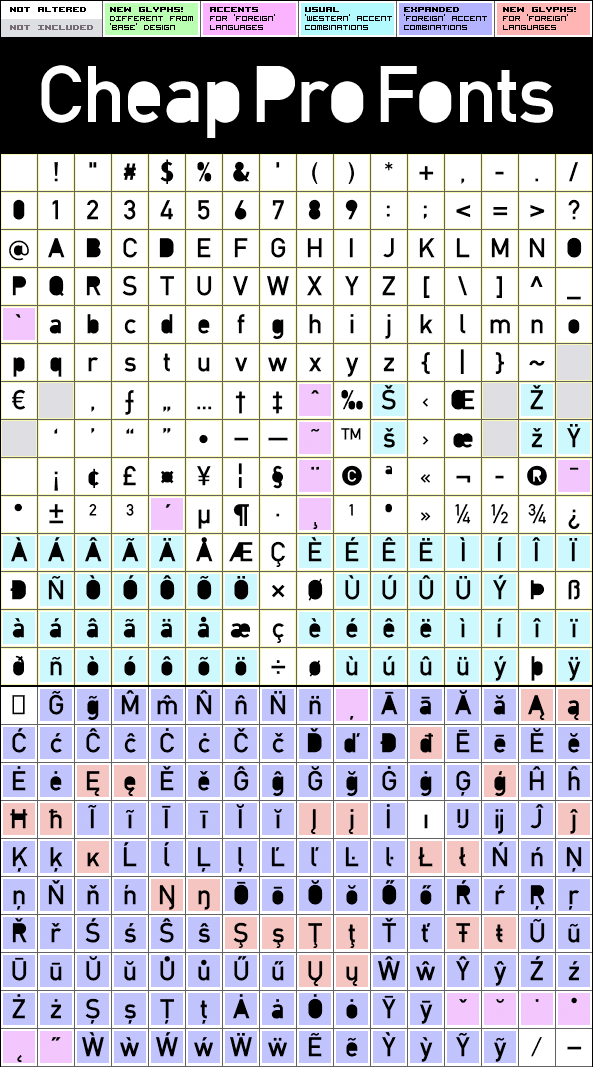
DINfun Pro Counterless
379 glyphs!
632 class kernpairs
= 12027 kerning pairs
A simple and "traditional" grunge treatment to my variant of the classic DIN 1451 Mittelschrift - with the counters removed you can more easily fill them with something, or just leave them as blotches in the text. ;)
DINfun Pro Counterless is a professionally reworked font that contains an extended character set for setting text in 65 languages requiring more than the basic A-Z!